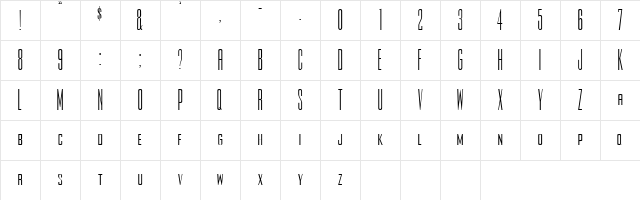
Joe 9 Plain
Design Context for Joe 9
Joe 9 is a composed and adaptable typeface that performs quietly and consistently across a wide range of design contexts.